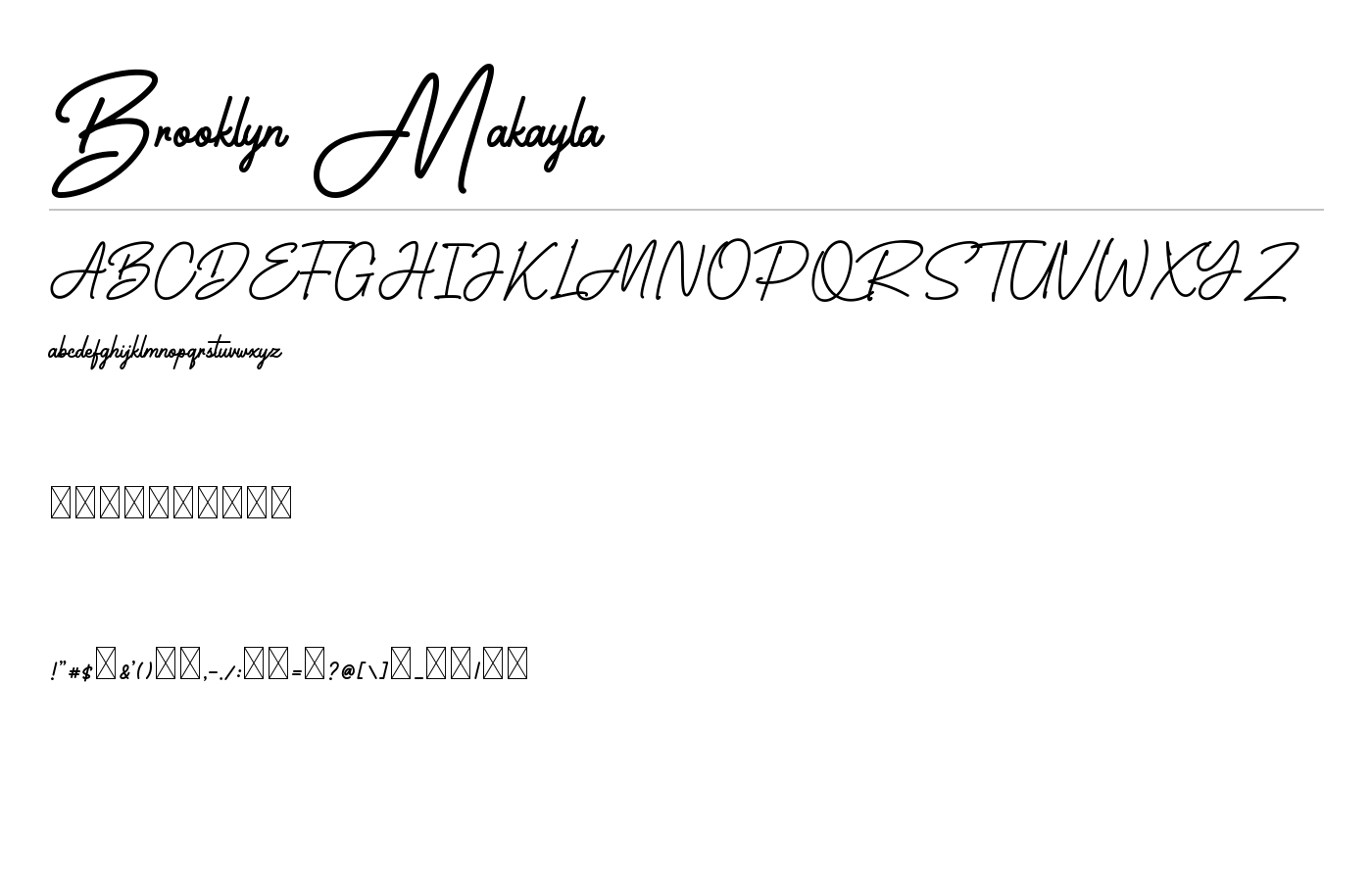
Brooklyn Makayla is a stylish script font with a smooth, flowing design that feels both modern and elegant. Its light weight and delicate strokes make it perfect for adding a personal, handwritten touch to invitations, branding, and creative projects where a graceful yet approachable look is desired. This font works best in headlines or logos, lending a sense of sophistication and warmth without overwhelming the design.
Brooklyn Makayla Font
About Brooklyn Makayla Font
| Designer | M Arif Dwi Prasetyo & Eko Nurcahyo |